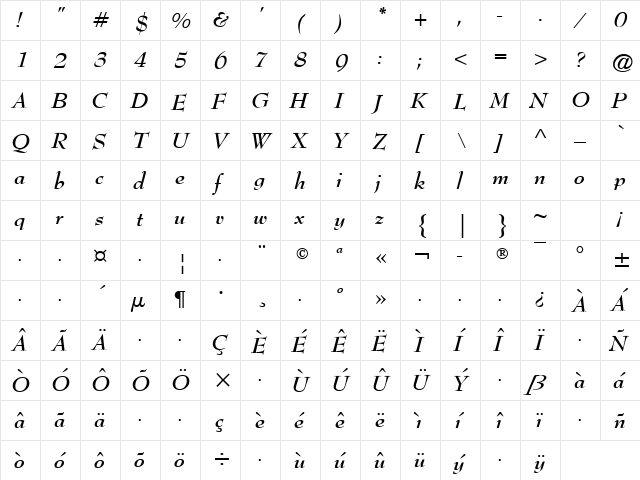
Metro Bold Italic
Design Context for Metro Typeface
Metro is a composed and adaptable typeface that performs quietly and consistently across a wide range of design contexts. The dynamic lean of this cut emphasises speed and emphasis in any layout. The heavy weight commands attention and anchors typographic hierarchies.
Pro Tip: Use Metro for emphasis, pull quotes, and subheadings where its slanted energy can add rhythm to the layout.